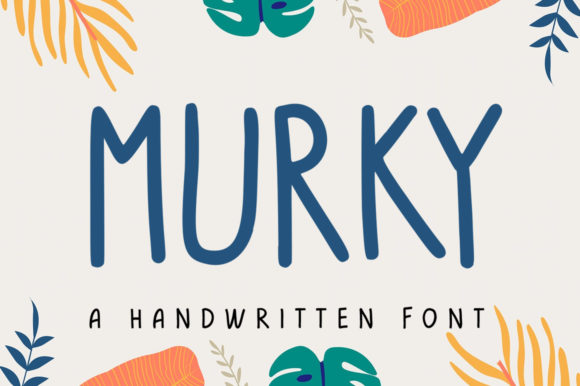
Step into a realm where your digital creations burst with life and character, with Murky Font – a captivating script font family that's ready to unleash your creativity. Designed by the ingenious minds at Jupiter Studio, Murky Font captivates with its playful and joyous nature, conjuring a sense of childlike wonder and boundless imagination.
Embrace the magic of Murky Font and watch as your words dance across the screen, brimming with personality and charm. Its tall and friendly letterforms, reminiscent of a child's playful scrawl, lend an irresistible touch of whimsy and delight to any design. Picture your website, social media posts, or marketing materials adorned with Murky Font, radiating a sense of pure joy and heartfelt connection with your audience.
Let your imagination run wild as you explore the endless possibilities with Murky Font. Its enchanting style lends itself seamlessly to children-themed designs, where bright colors and playful elements ignite a sense of wonder and excitement. Create captivating children's books, vibrant posters, eye-catching social media graphics, and more – all infused with the infectious energy of Murky Font.
Murky Font's charm extends beyond children-themed designs. Its versatility shines through in a myriad of creative applications, from quirky logos and playful branding to whimsical invitations and heartfelt greeting cards. Let your creativity soar as you witness Murky Font transform ordinary text into extraordinary expressions of joy and individuality.